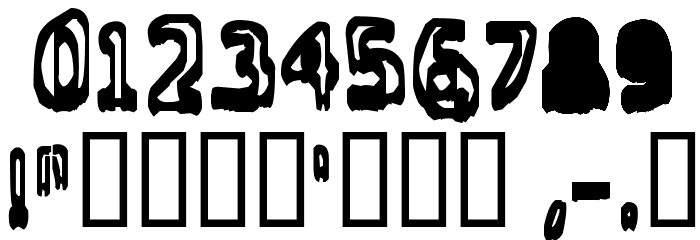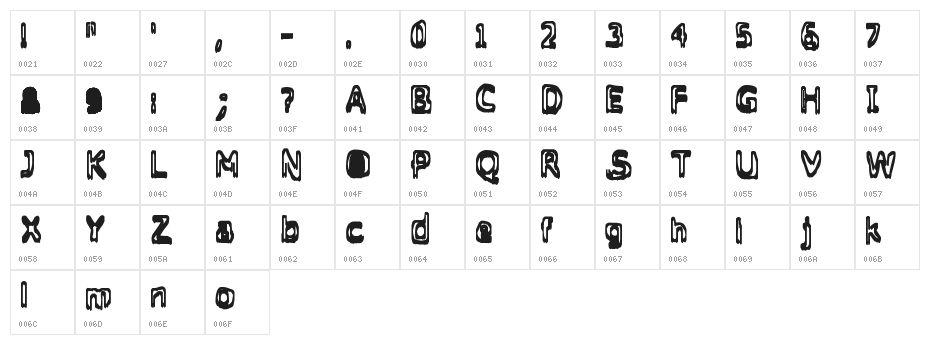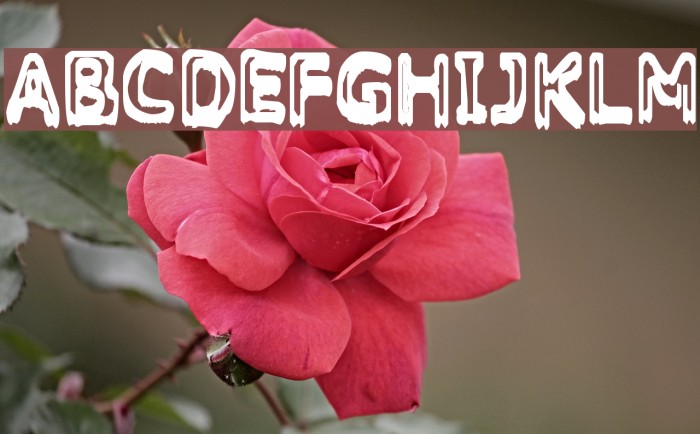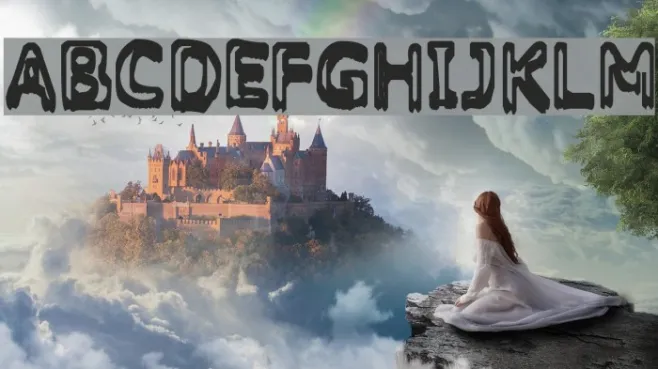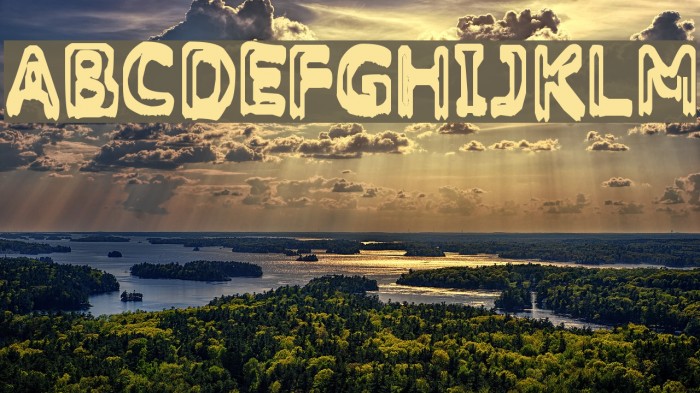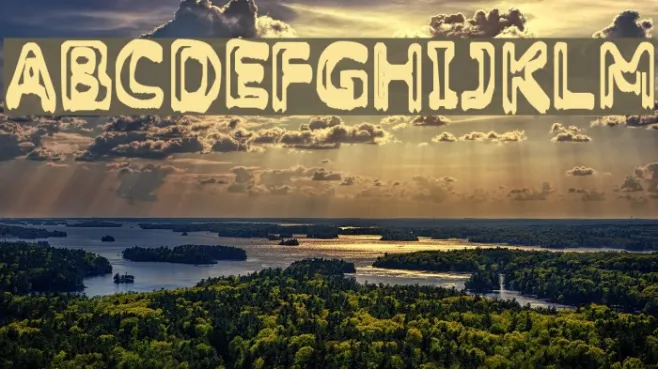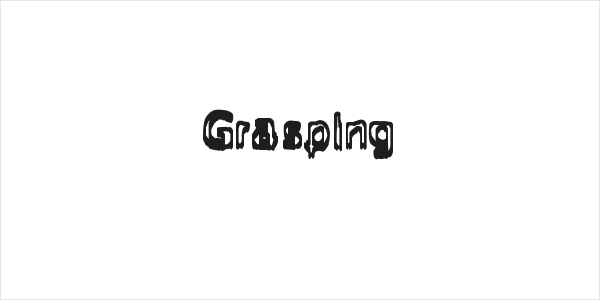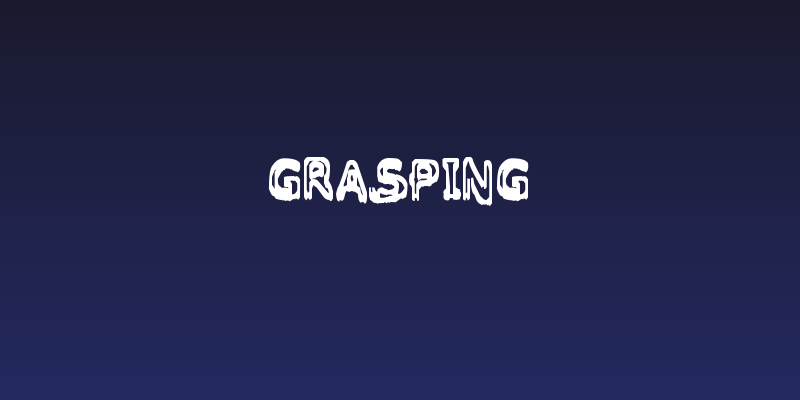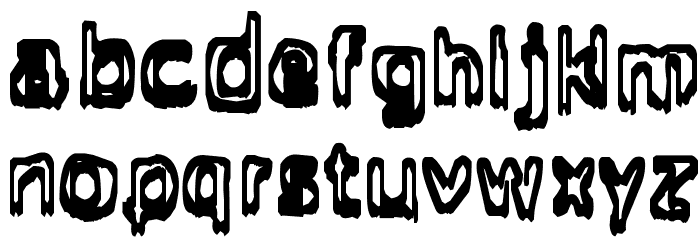
Grasping Font
Grasping Description
This font features a bold, artistic style with a hand-drawn appearance. The characters have a rough, textured look, giving them a unique, organic feel. The uppercase and lowercase letters maintain a consistent design, with thick strokes and uneven edges that create a sense of movement and energy. Numbers and special characters follow the same aesthetic, ensuring a cohesive look across all text elements. This font's distinctive style makes it stand out, ideal for projects that require a creative and unconventional touch.
| Overall Style | Artistic, Creative, Hand-drawn |
| Proposed Projects | Ideal for posters, album covers, artistic branding, and creative projects that require a unique, eye-catching typeface. |